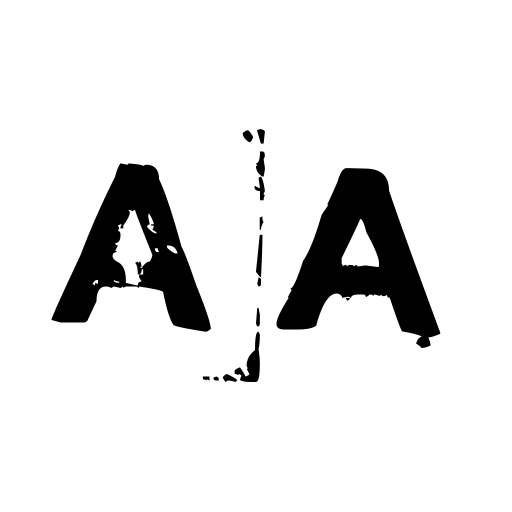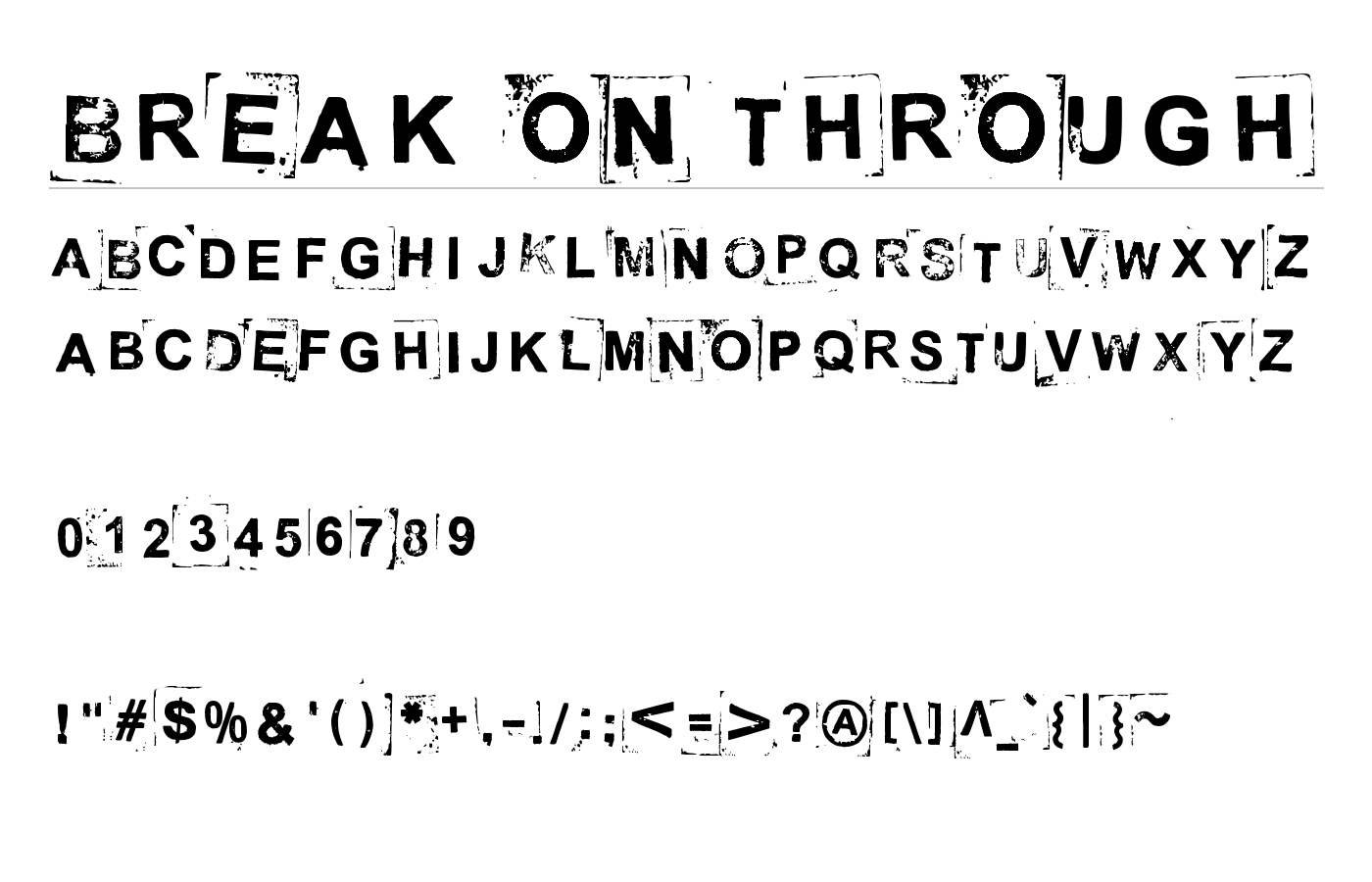
Break on Through is a bold, distressed sans serif font that captures a raw, vintage stamp-like aesthetic with its irregular edges and worn textures. Its uppercase-only design and strong, compact letterforms give it an industrial, rebellious feel, making it perfect for edgy branding, posters, or headlines seeking a gritty, authentic vibe. This font stands out in creative projects that want to convey toughness and a handcrafted spirit.
Break on through Font
About Break on through Font